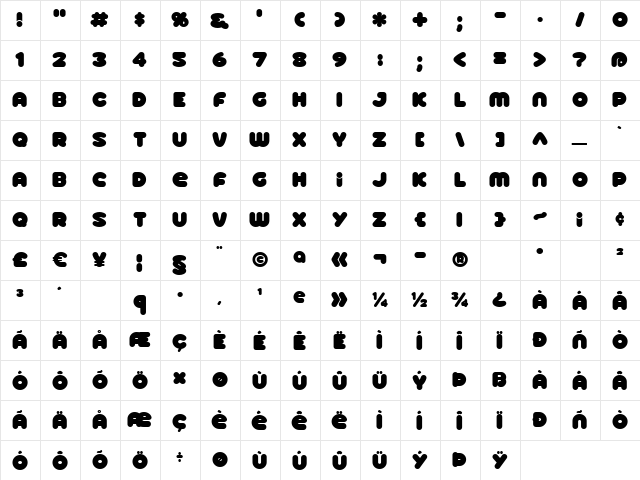
Roller Baby BV Regular
Design Context for Roller Baby BV Typeface
Roller Baby BV is a composed and adaptable typeface that performs quietly and consistently across a wide range of design contexts.